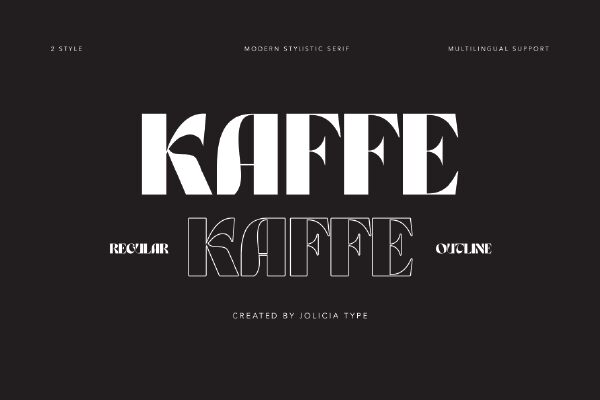
Kaffe-Regular
Kaffe font by Jolicia Type Foundry is a bold retro display font with distinctive geometric shapes that create appealing decorative elements. The modern design shows minimalism and contrast which is not neglected in the elements. All of these characteristics give the font an exceptional identity that catches the eye even when used in small amounts.
The free display font allows users to create vintage branding and packaging, sleek posters, striking flyers, letterheads, and business cards. It is also ideal for web designs where it can be included in hero headers for landing pages, or offered solely inside applications themselves. Social media account styling will also benefit from Kaffe’s beauty and originality.